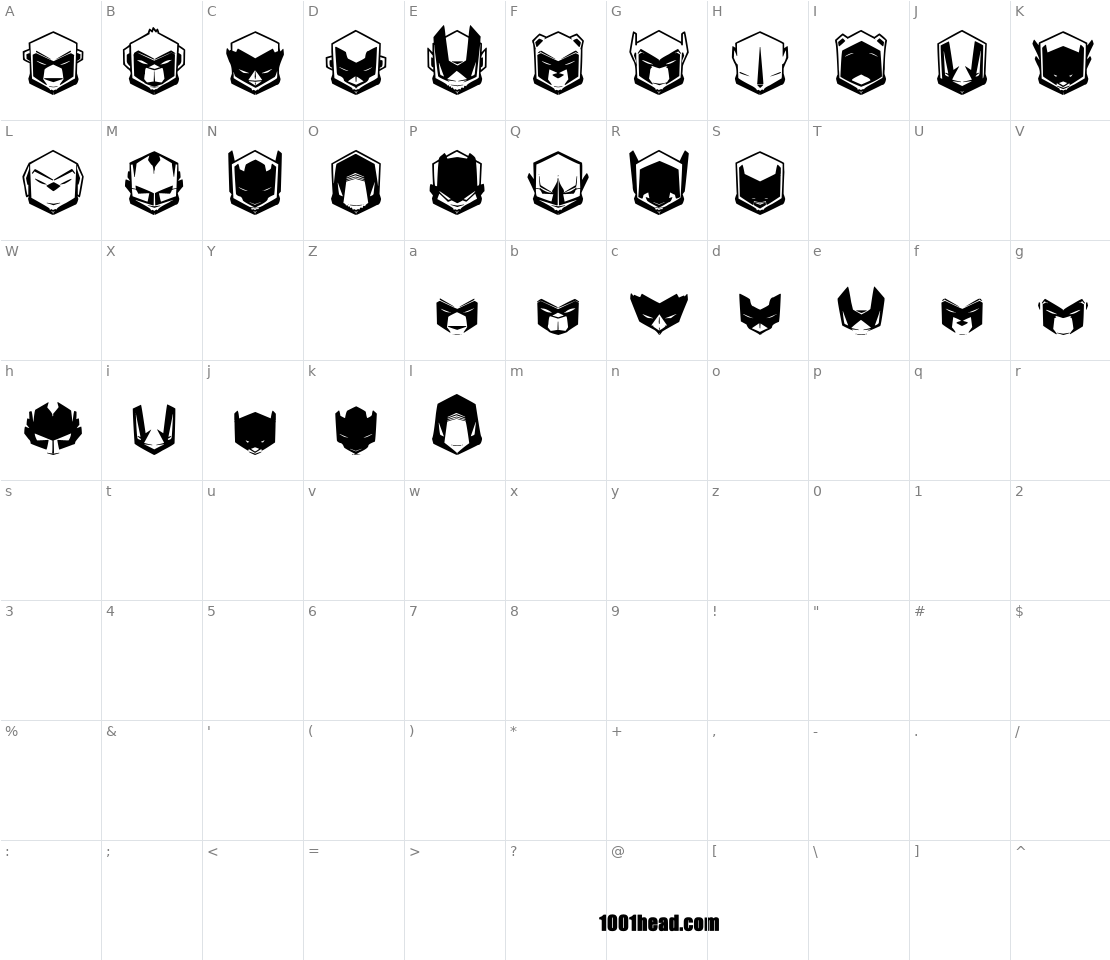
NoxOne
NoxOne is a decorative symbol font by Maelle.K and Thomas Boucherie, offering a collection of fantasy-themed icons including masks, helmets, shields, and warrior imagery. Rather than letters, each glyph is a standalone illustration, making it a useful resource for tabletop game materials, fantasy UI elements, or decorative accents in medieval and warrior-themed design projects.